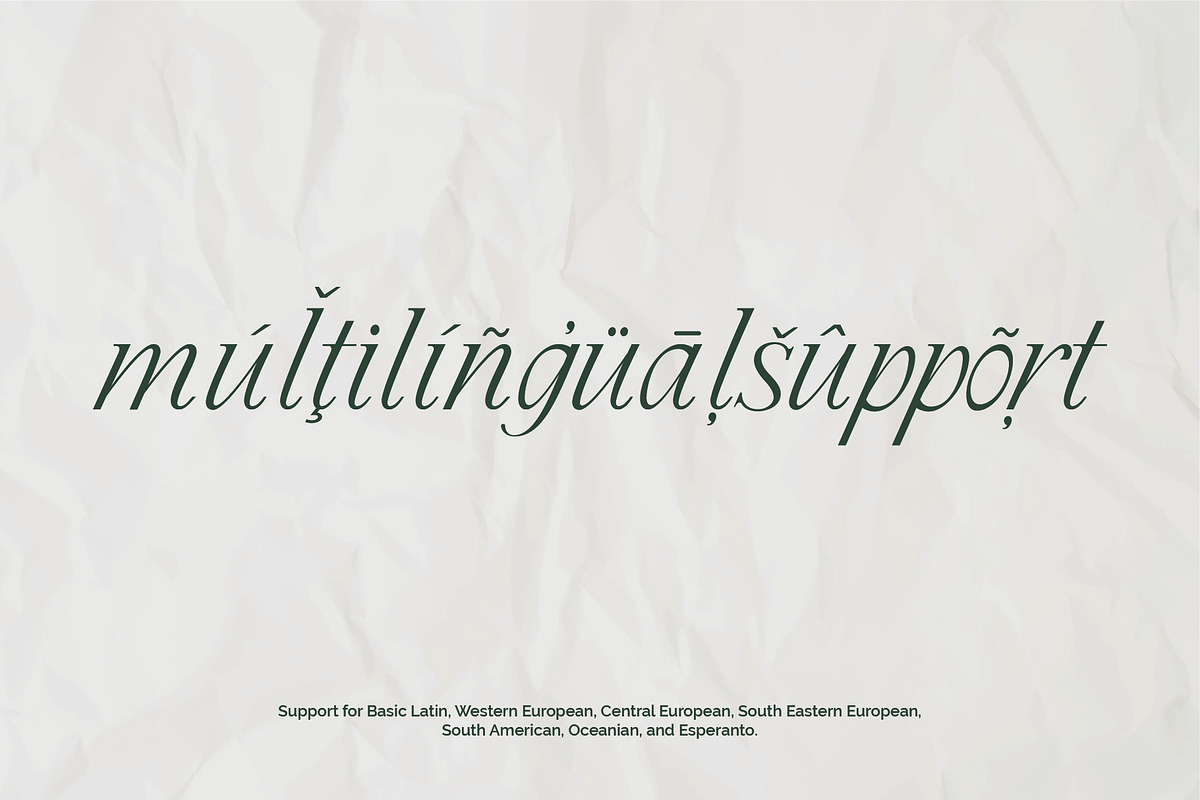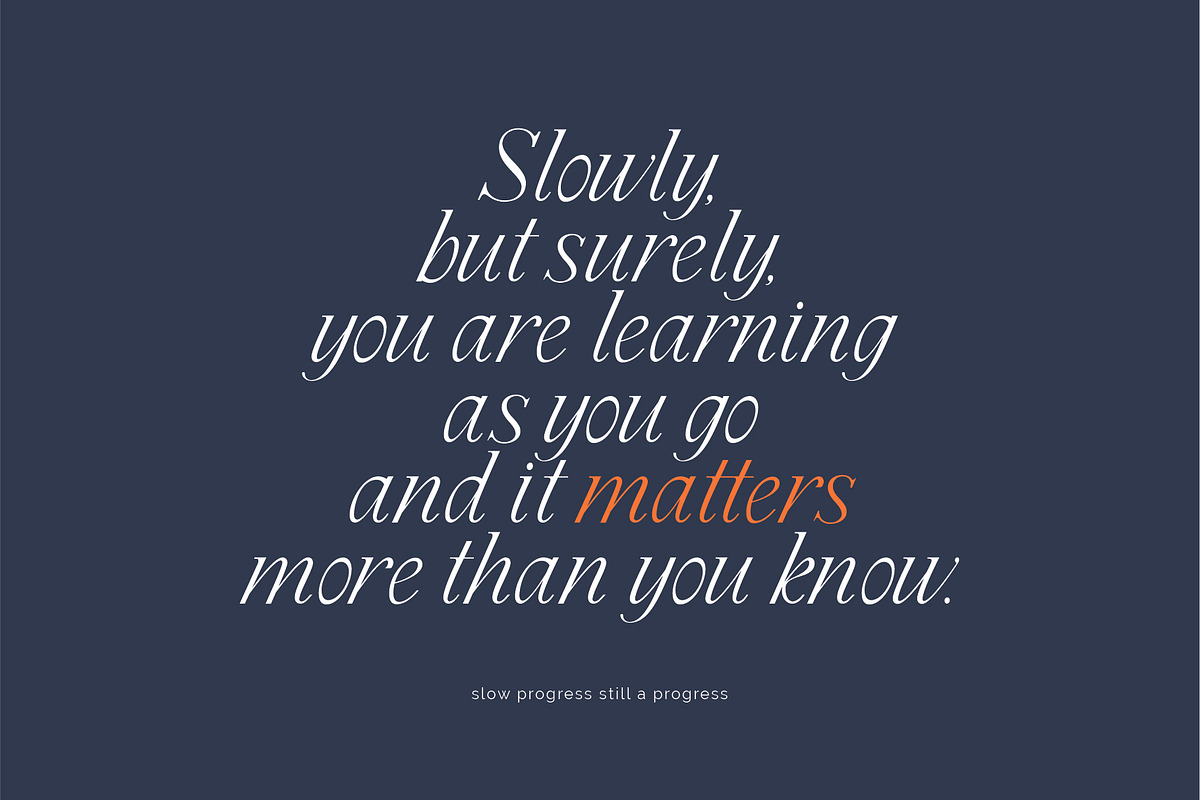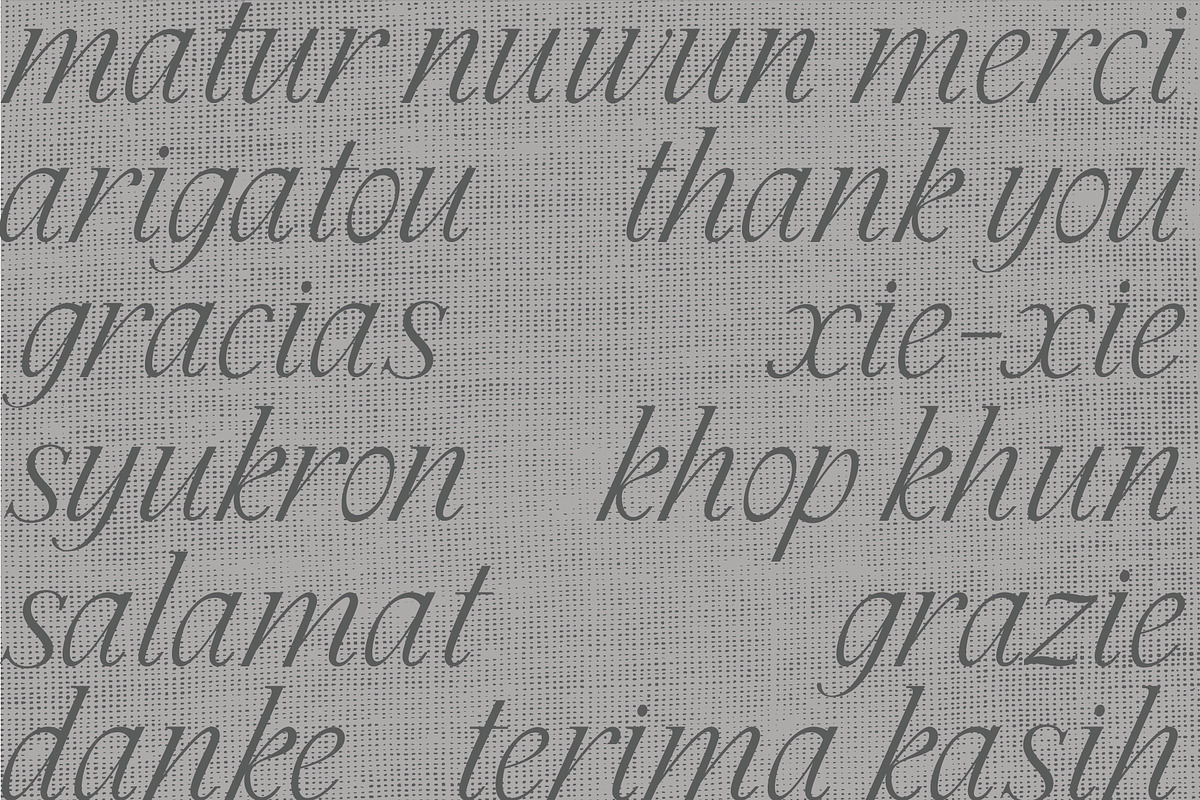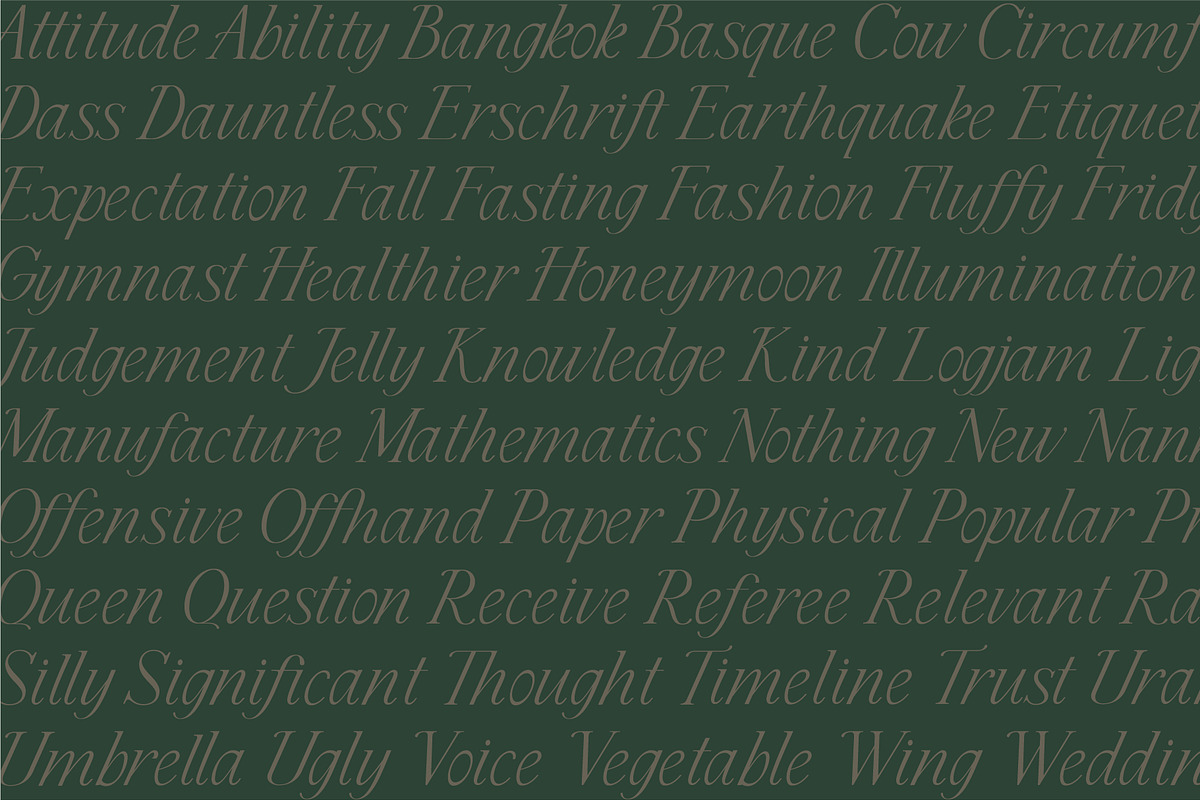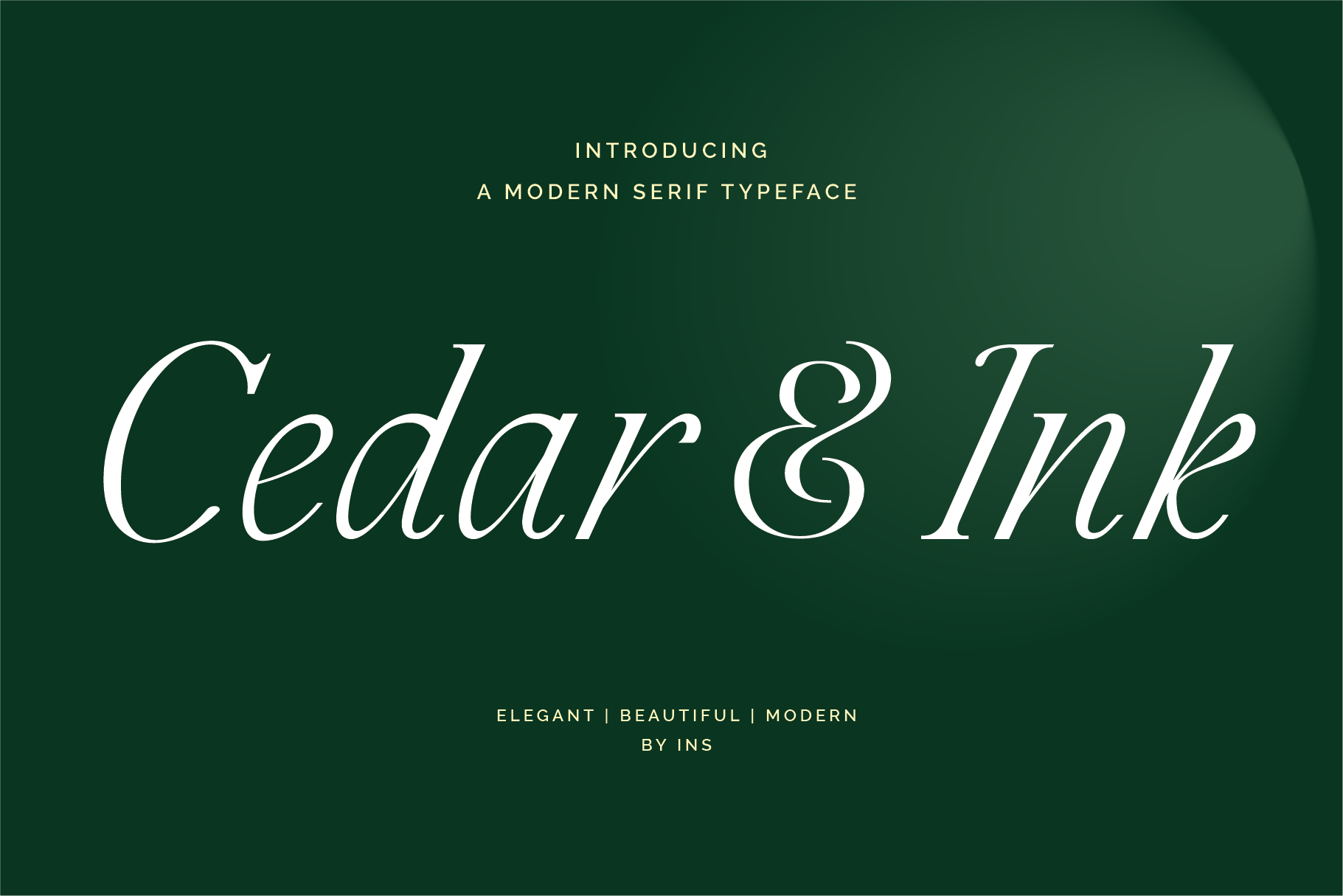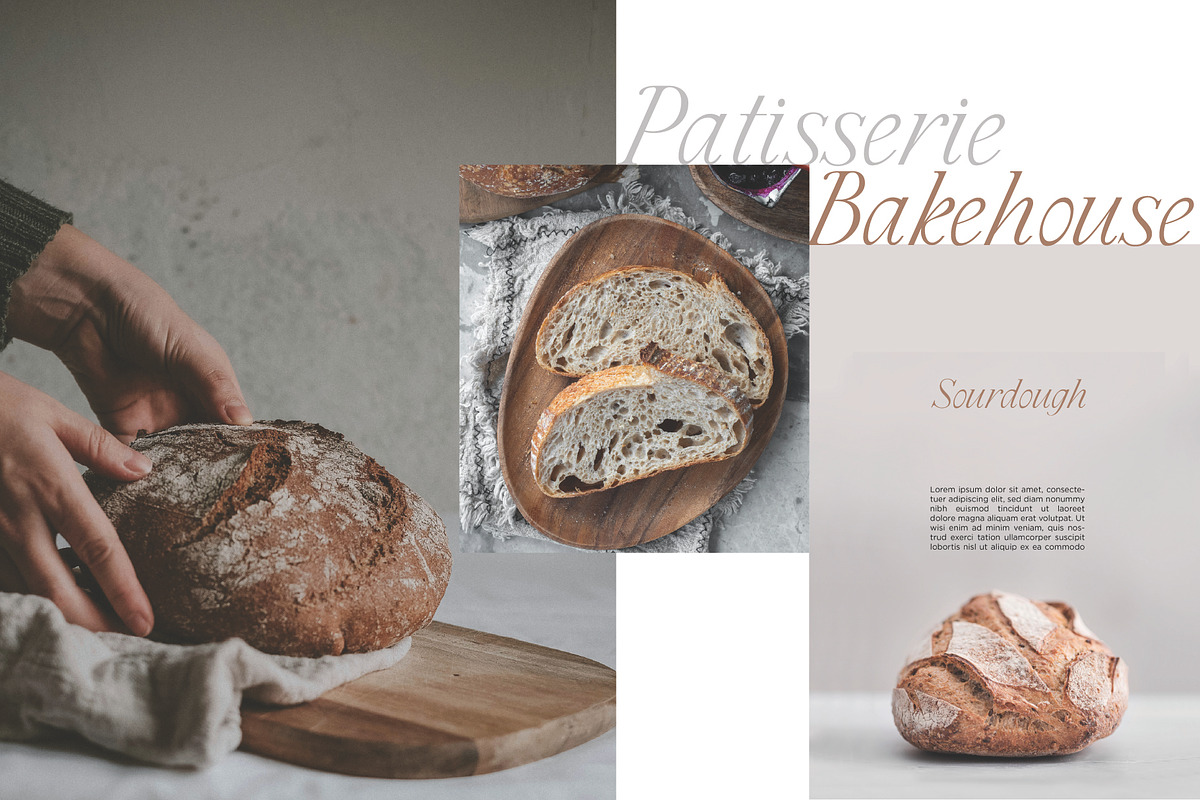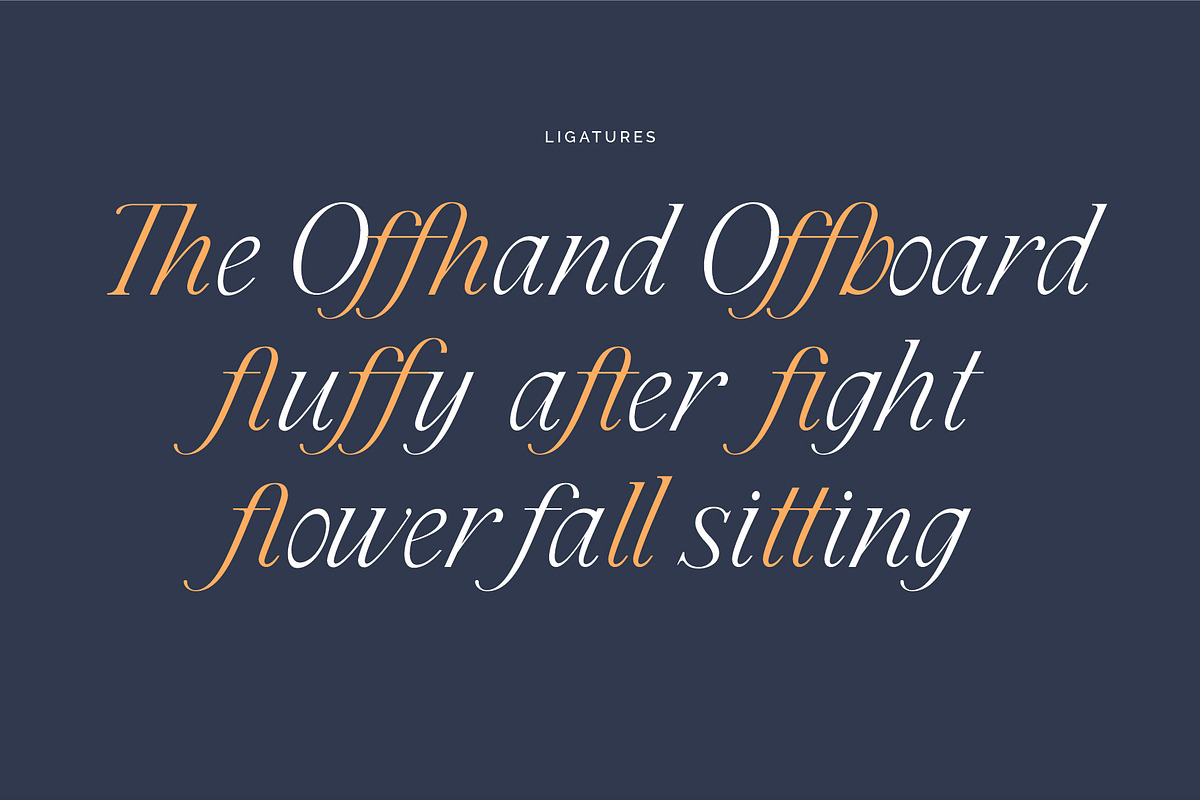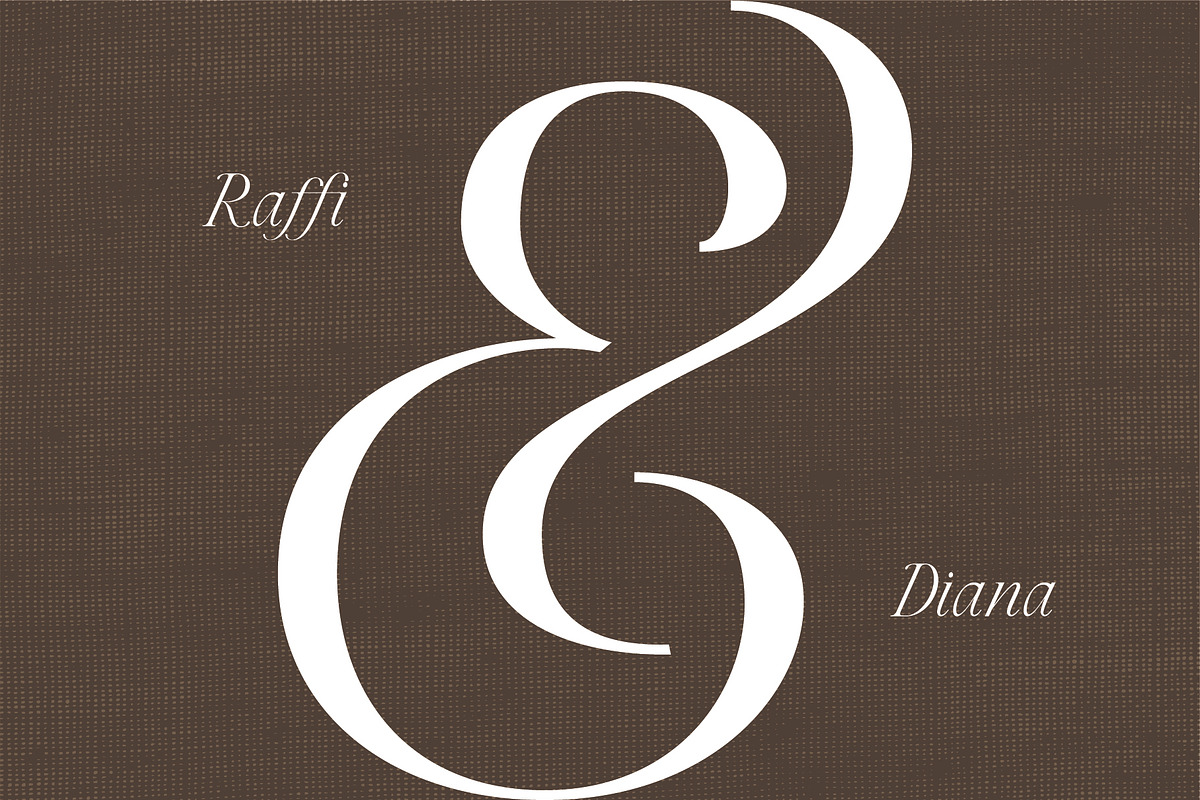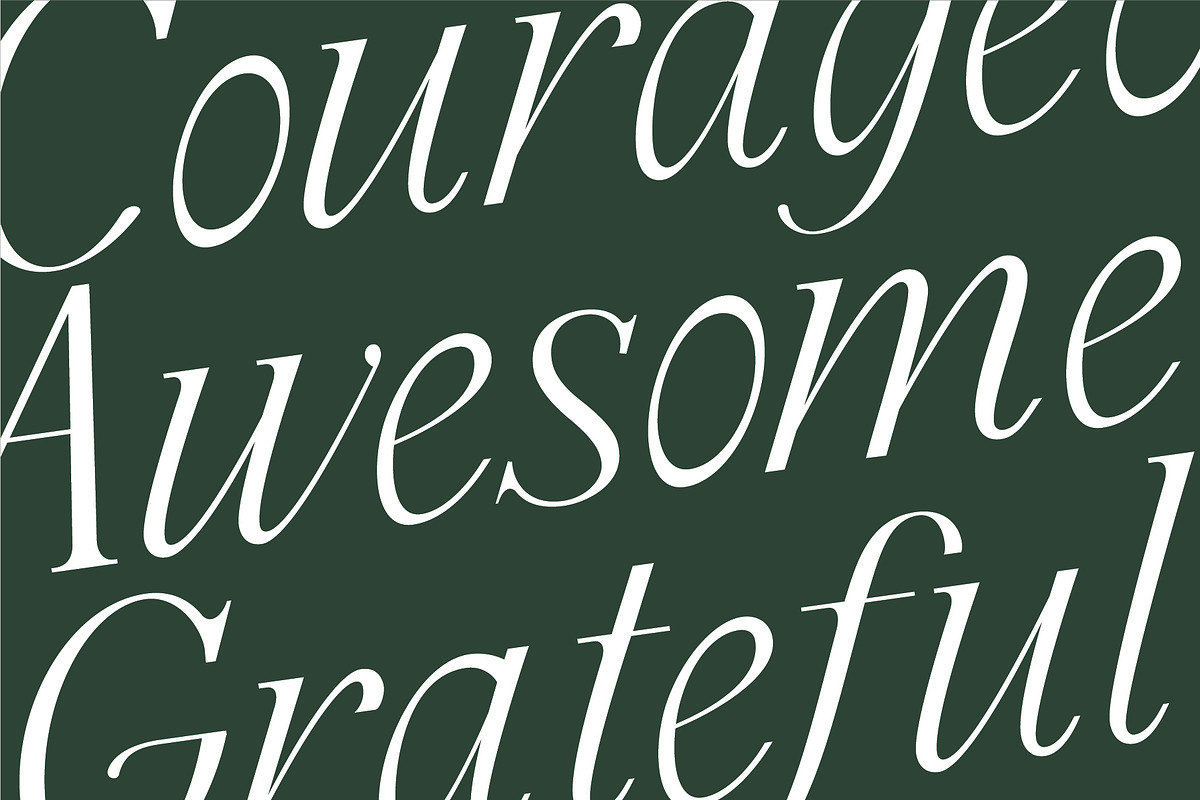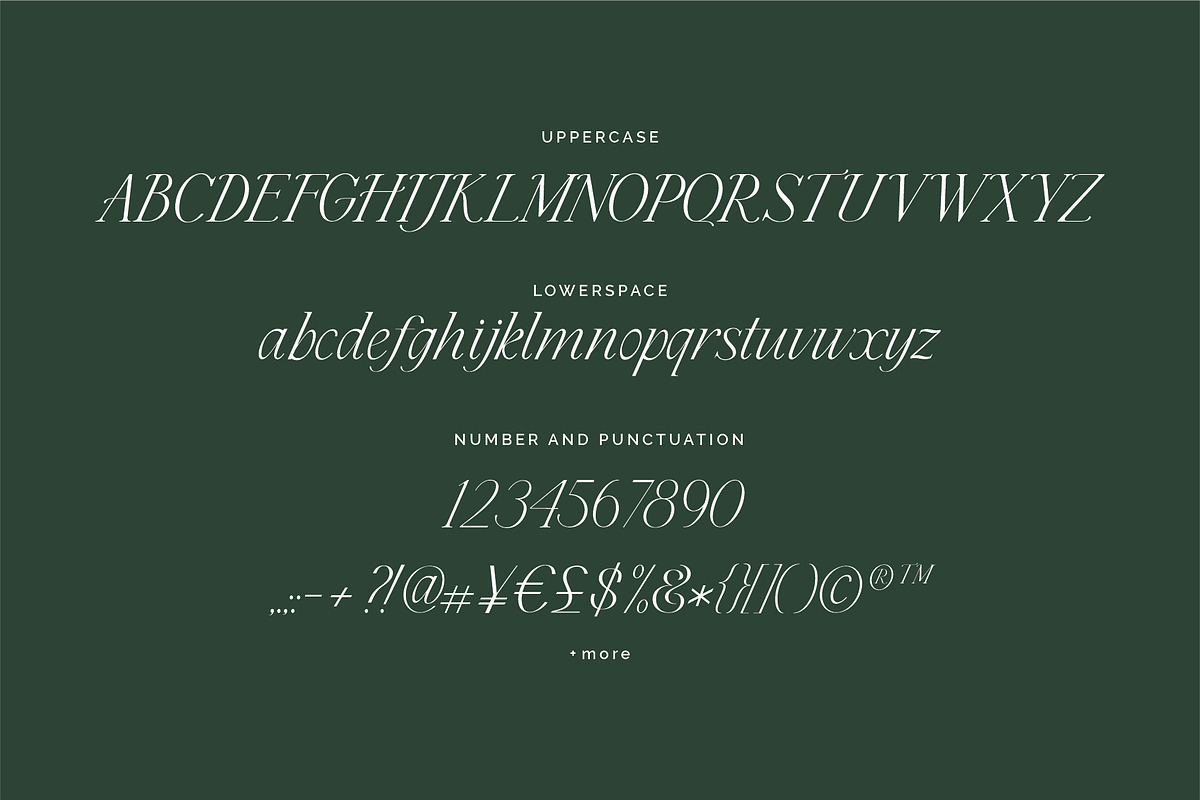
Cedar & Ink Typeface
Say hello to Cedar & Ink, a modern serif typeface that embraces the past while stepping confidently into the future. With clean lines and sharp details, this typeface is the perfect blend of classic and contemporary. It's ready to be your go-to font for your awesome projects.
Cedar & Ink come with basic glyphs and ligatures. Support for Basic Latin, Western European, Central European, South Eastern European, South American, Oceanian, and Esperanto.